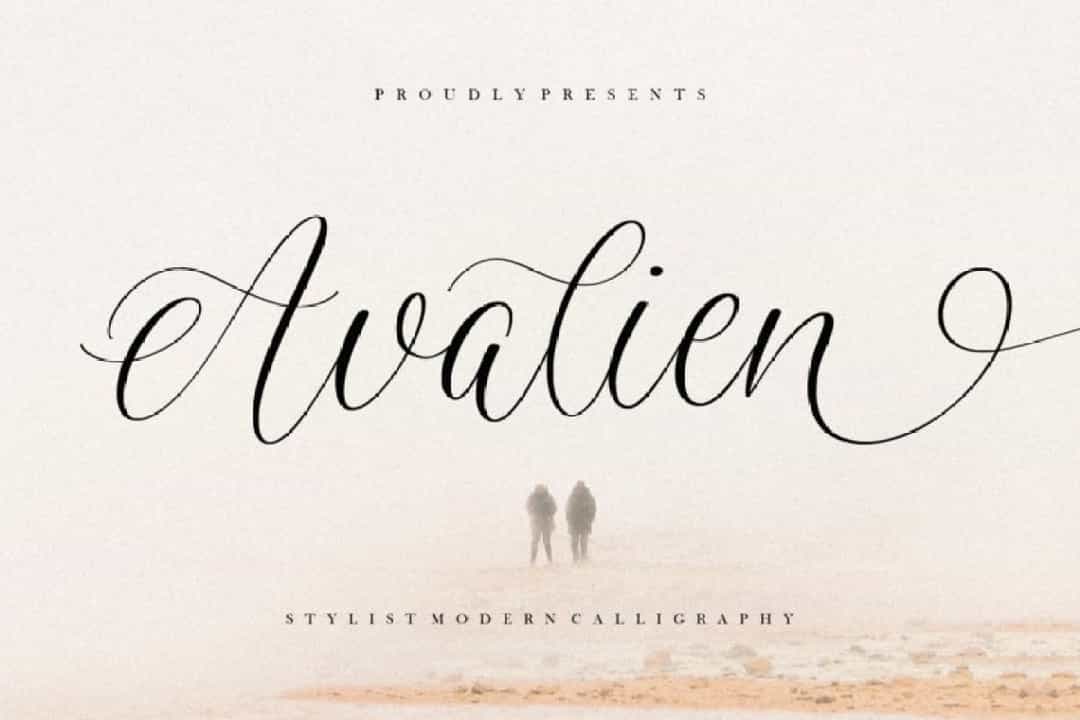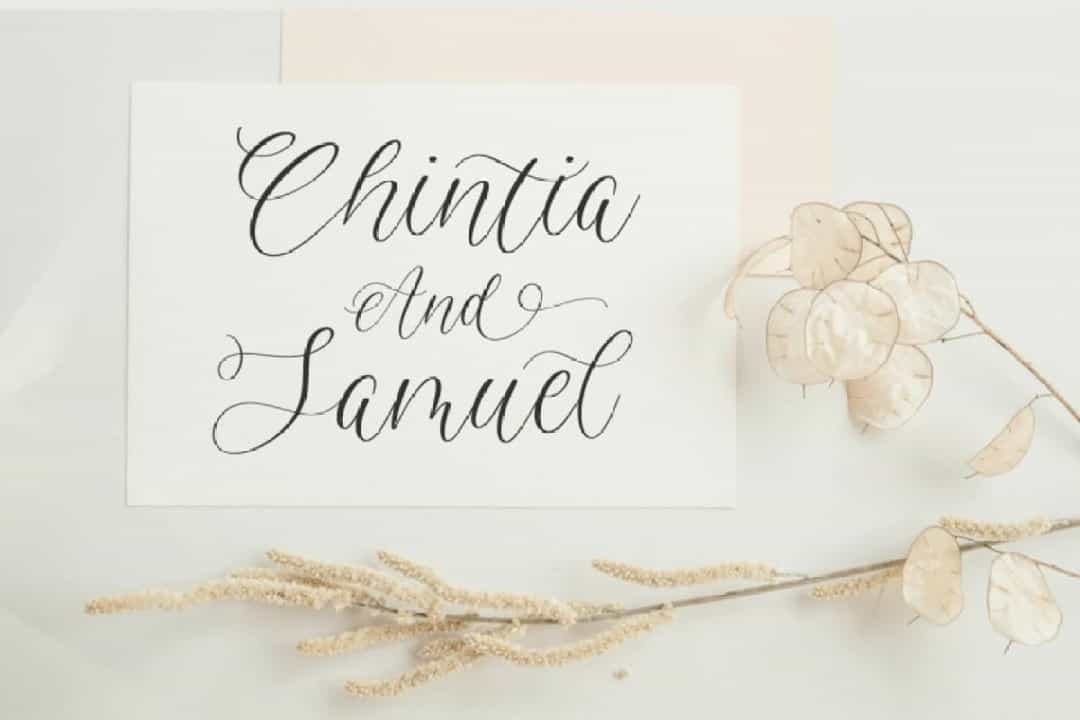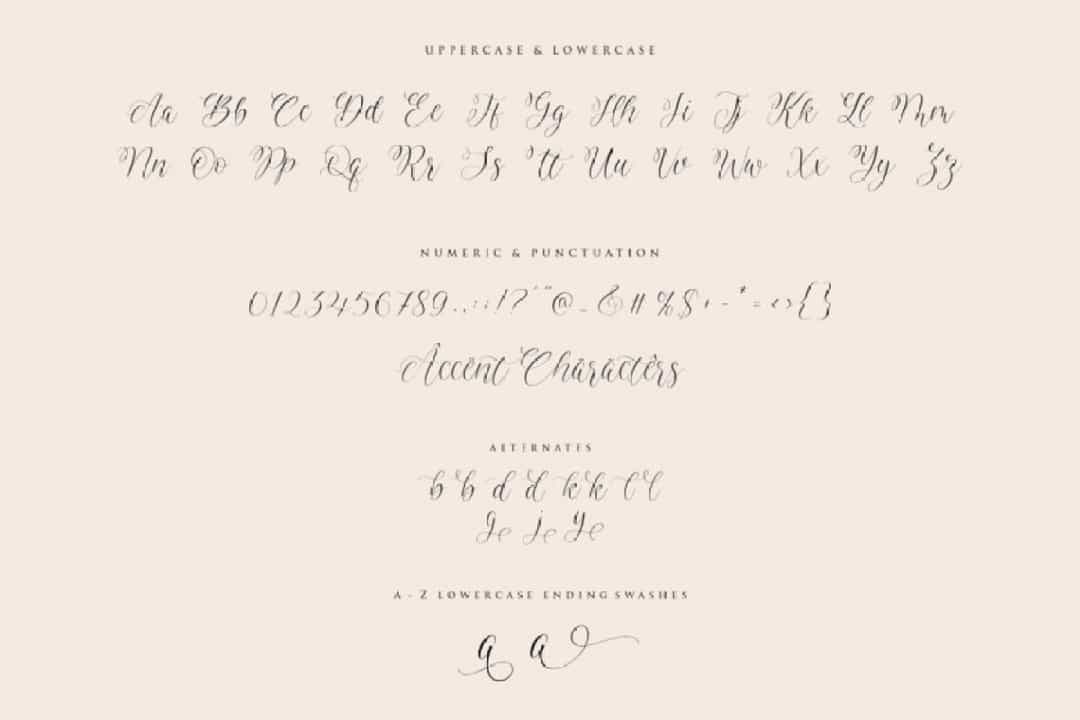
Avalien is a beautifully designed modern script font. Suitable for product packaging, logo design, magazines wedding shoots, social media marketing or simply to write text over an image, Avalien is elegance personified.